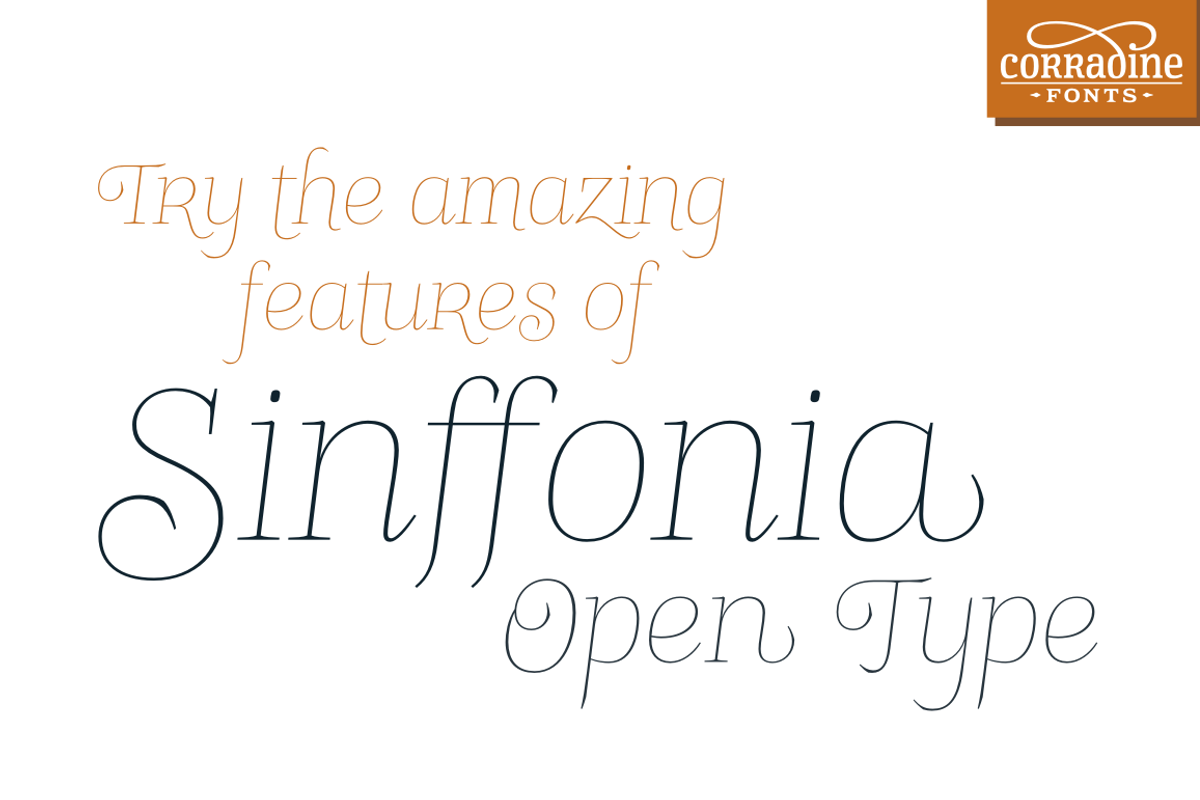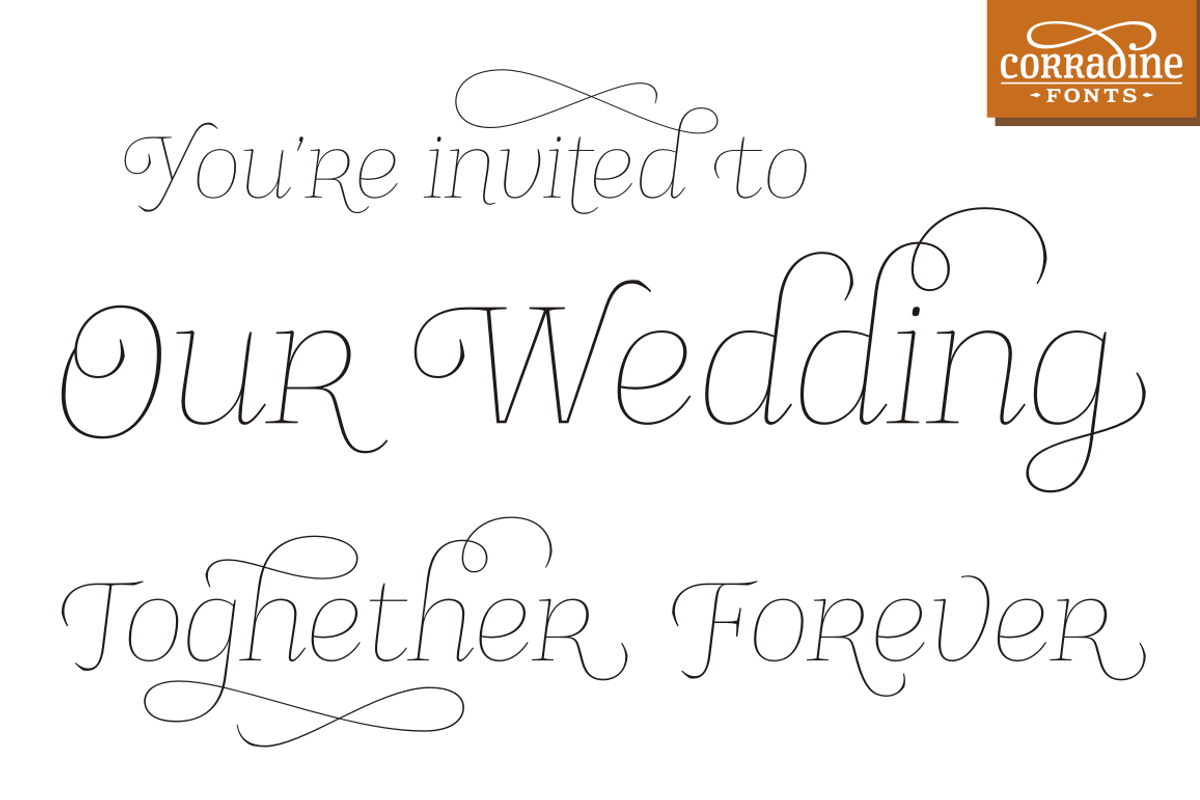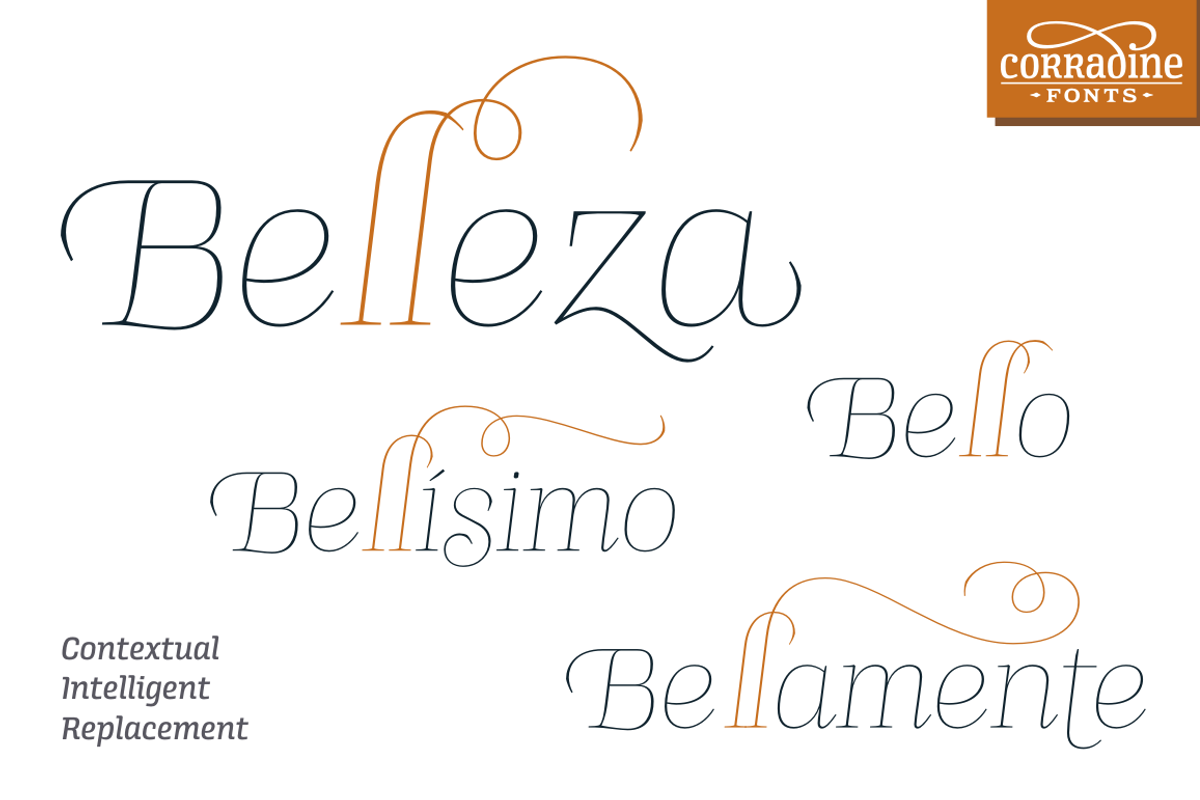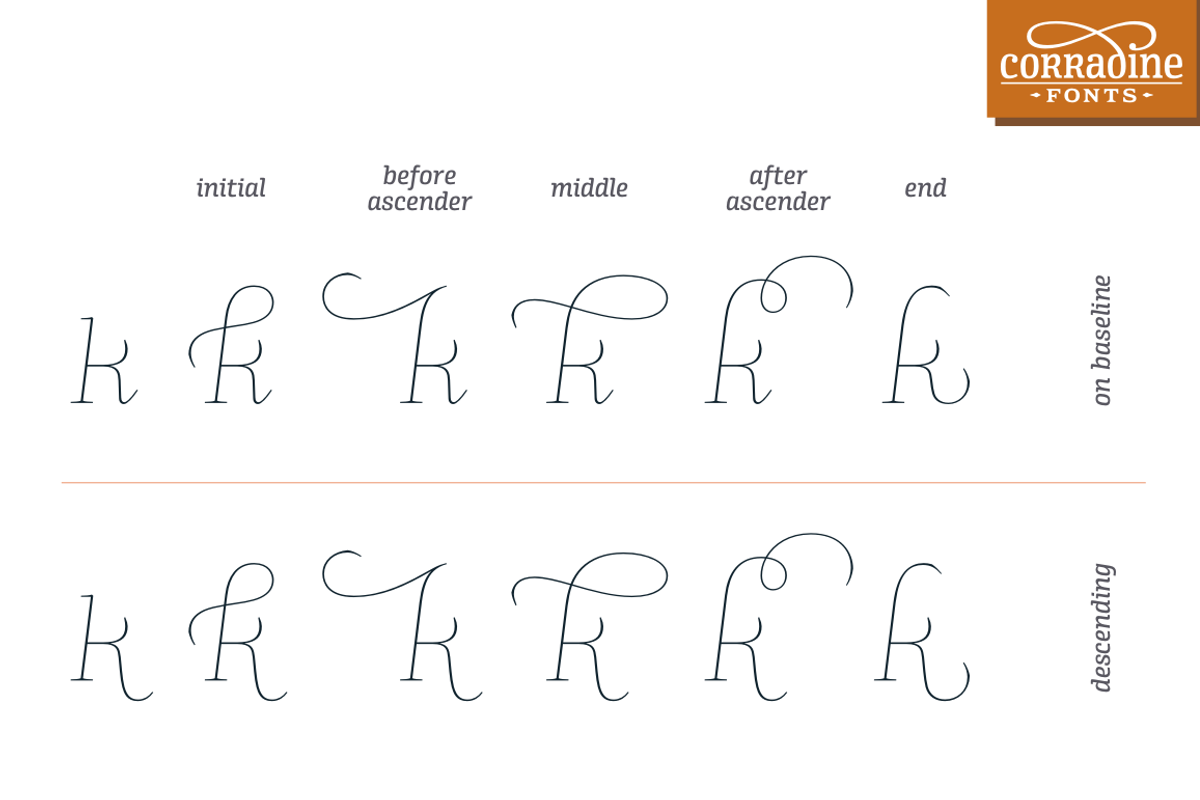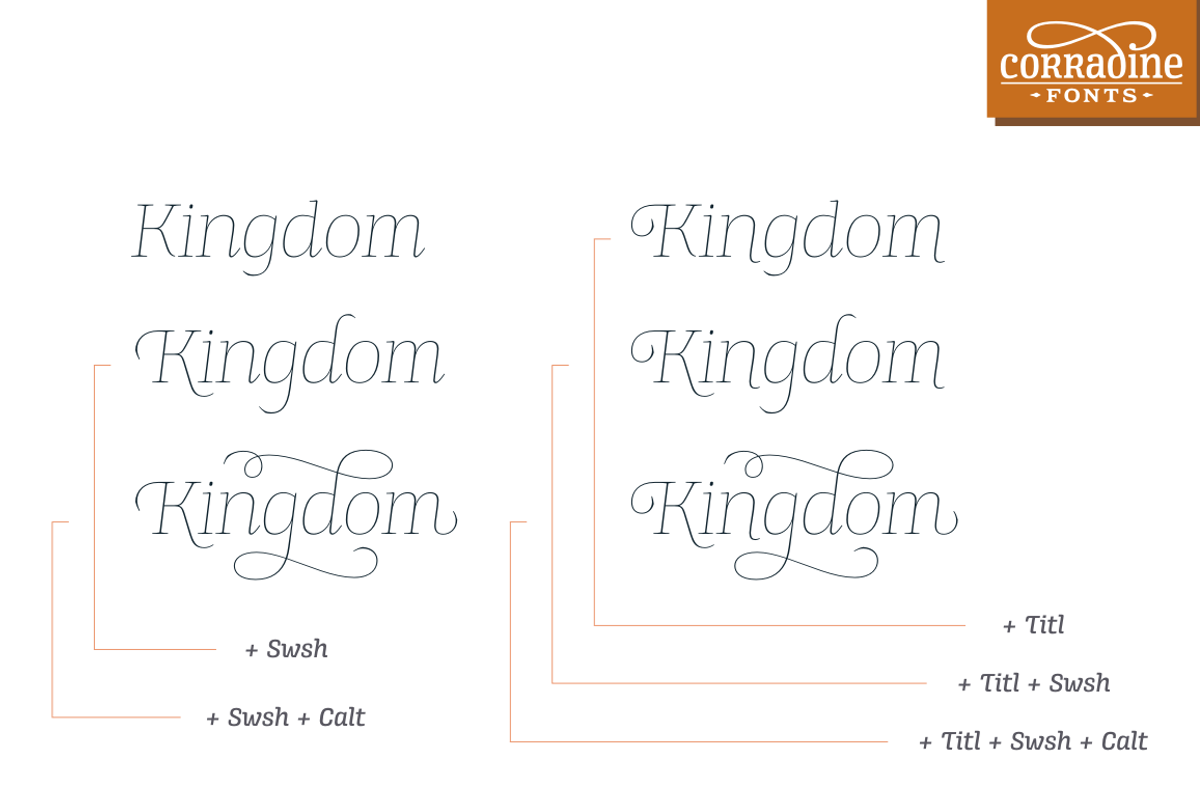
Sinffonia Open Type
Sinffonia Open Type by Corradine Fonts is a font selected for branding, posters, packaging, typography.
- The font is plenty of ligatures, alternative characters and ornamental characters, carefully programmed to replace automatically the glyphs
Why Sinffonia Open Type is worth a look
Sinffonia Open Type by Corradine Fonts fits naturally into Branding, posters, packaging, typography.